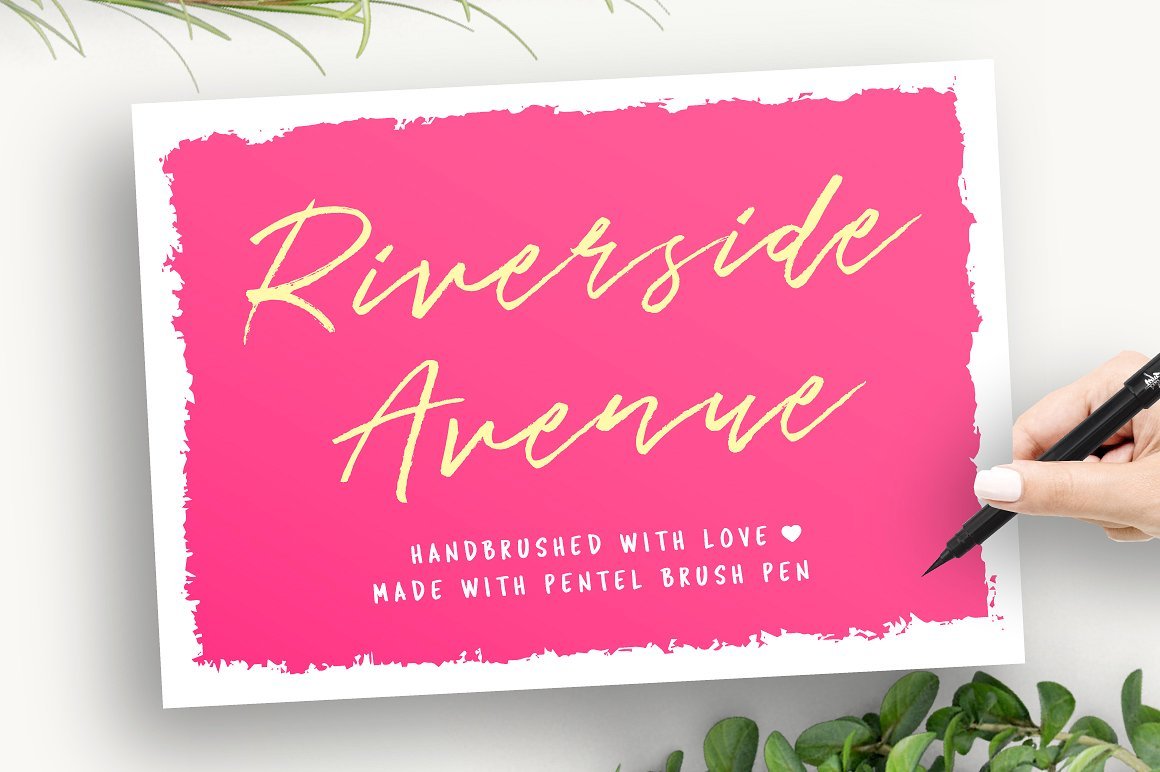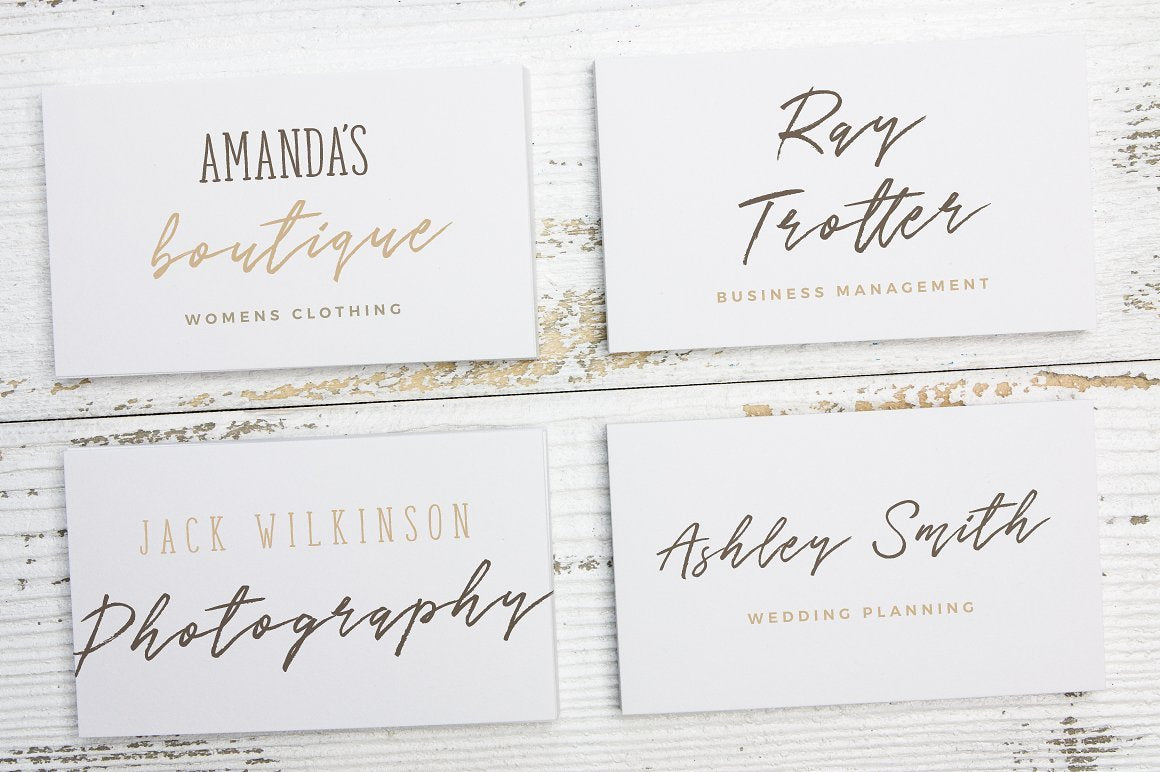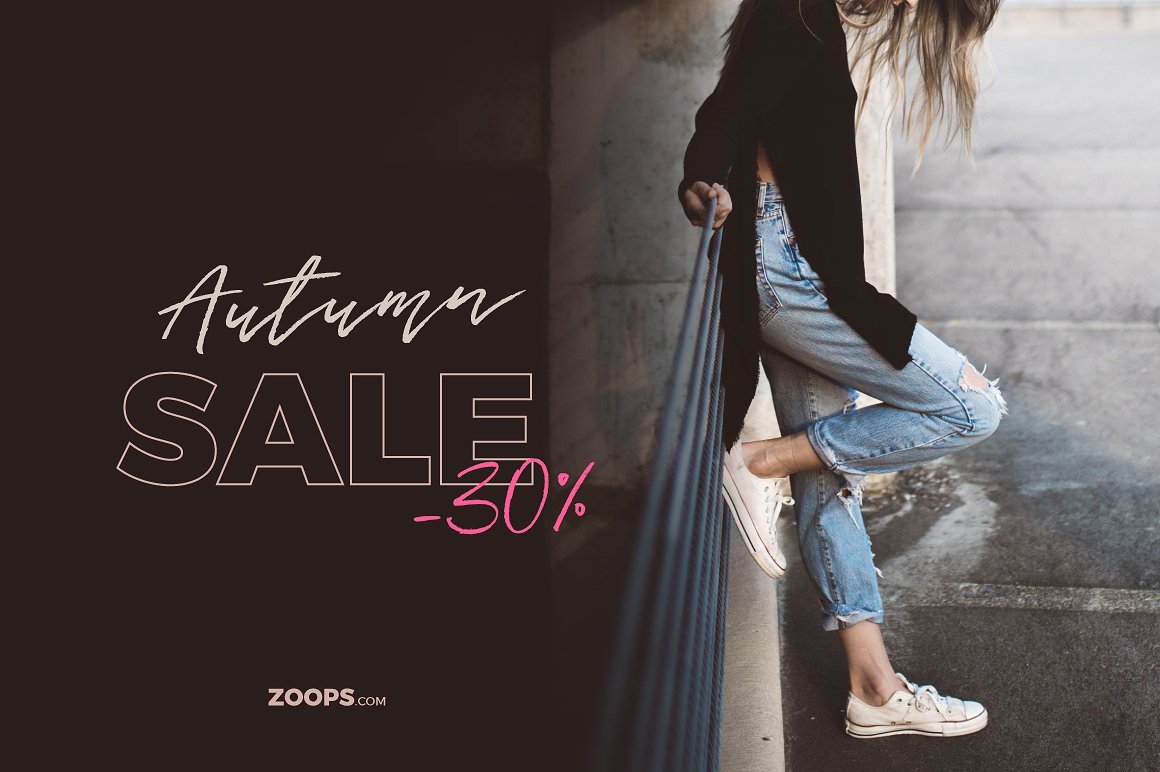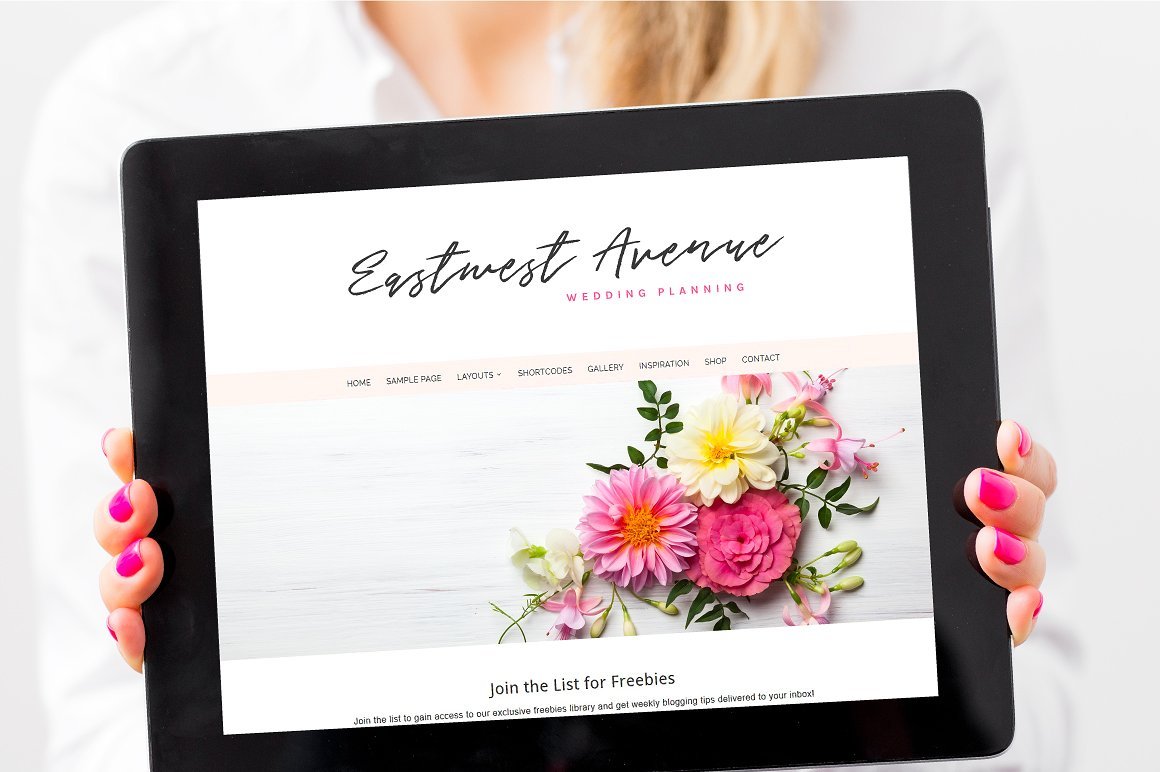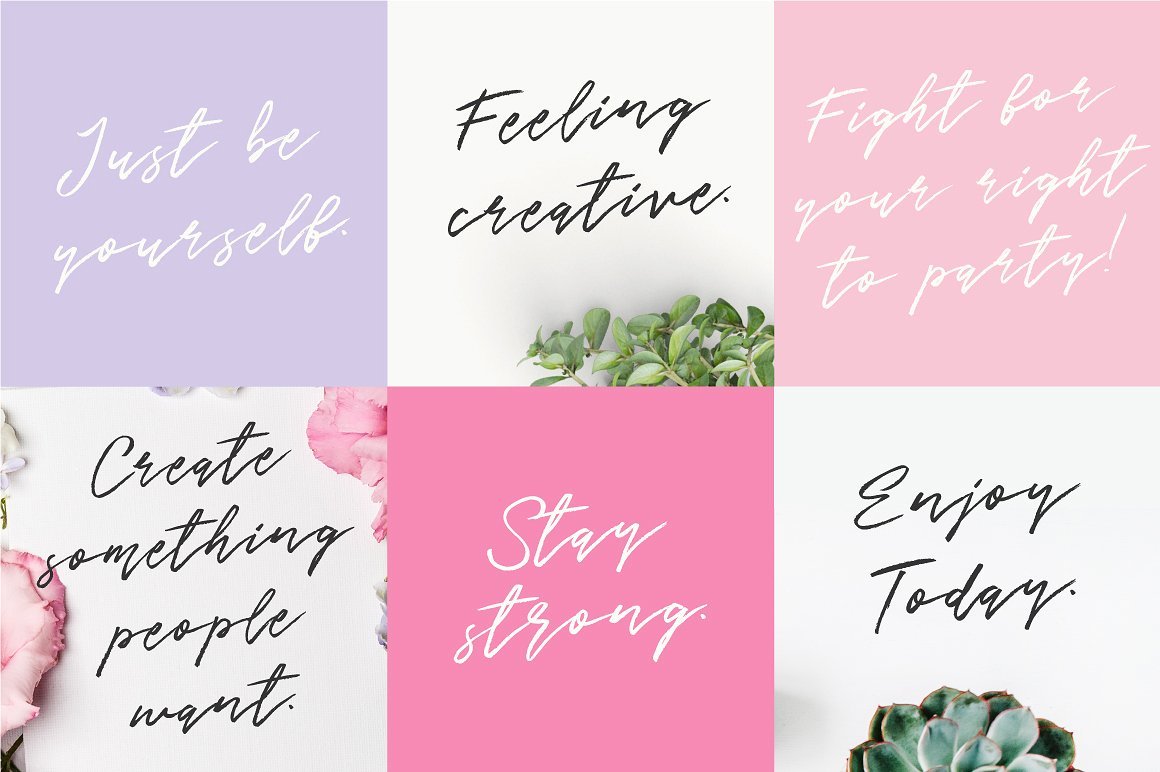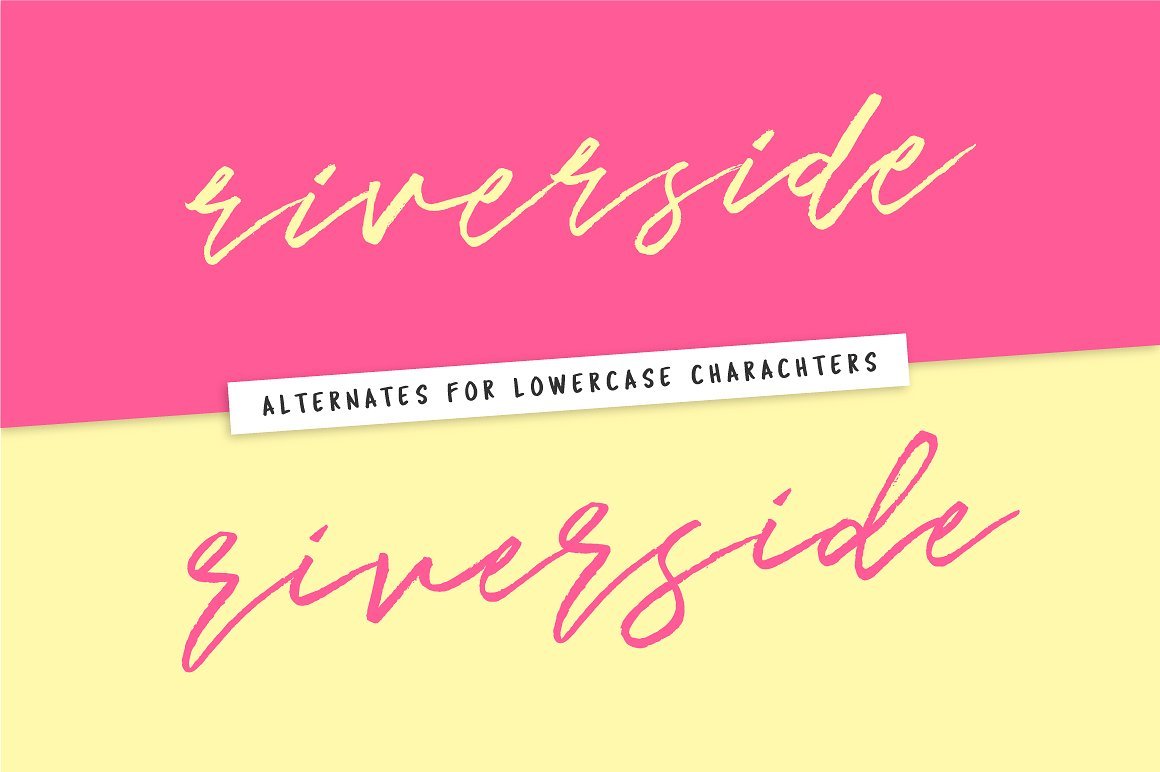
Riverside Avenue - Free Script Font
Riverside Avenue is a hand brushed font made by Mats-Peter Forss. It's authentically hand-lettered with love and made with the Pentel Brush pen in Mats's Scandinavian home studio!